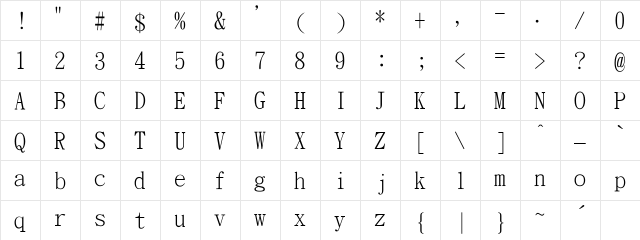
Complete Bitstream CyberCJK Roman glyph index. Displaying only characters natively supported by Bitstream CyberCJK Roman font.
Bitstream CyberCJK has a distinctly futuristic character, with geometric precision and clean angles that feel at home in technology, gaming, and sci-fi contexts.
Pro Tip: Try Bitstream CyberCJK with generous letter-spacing in UI labels and navigation - the geometric forms benefit from room to breathe.